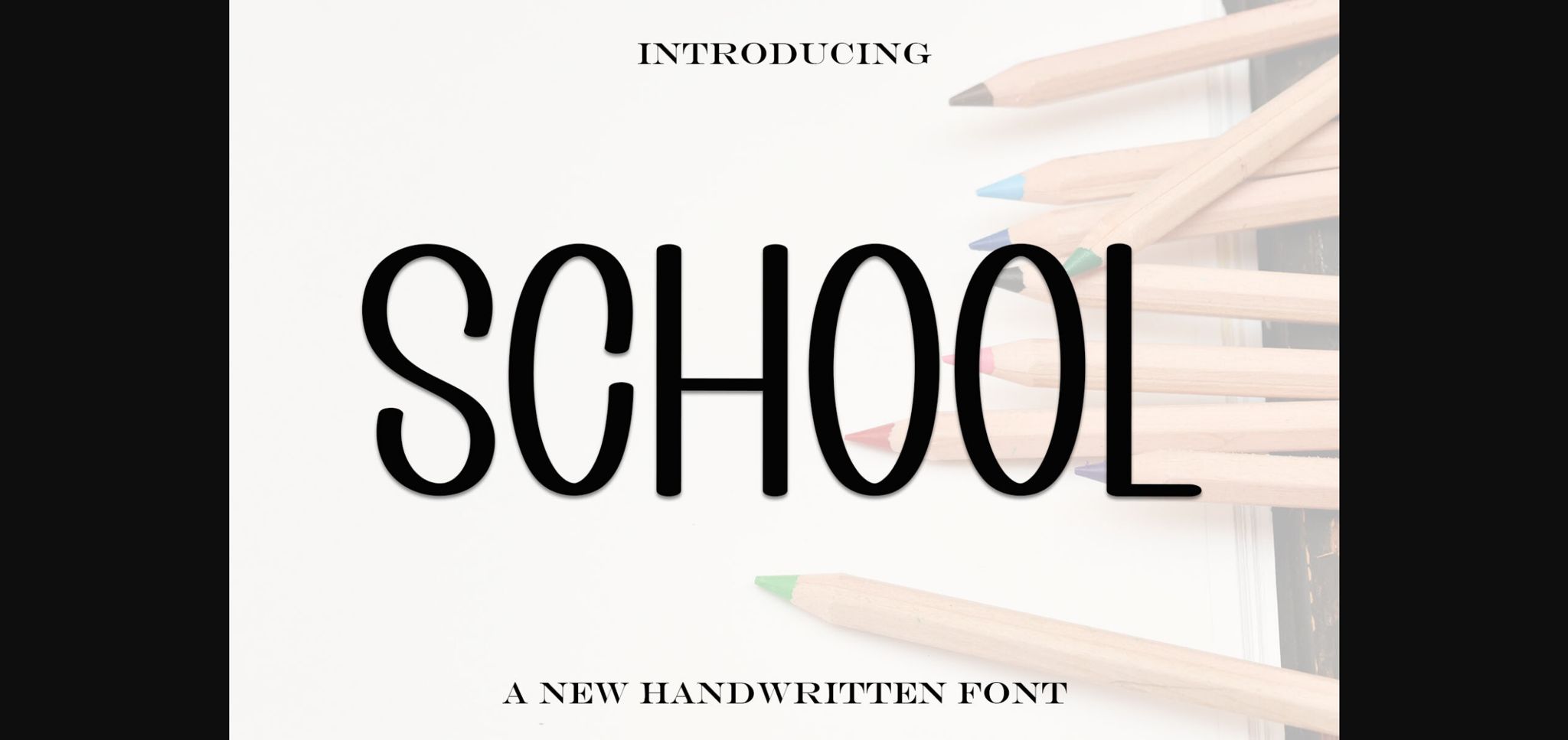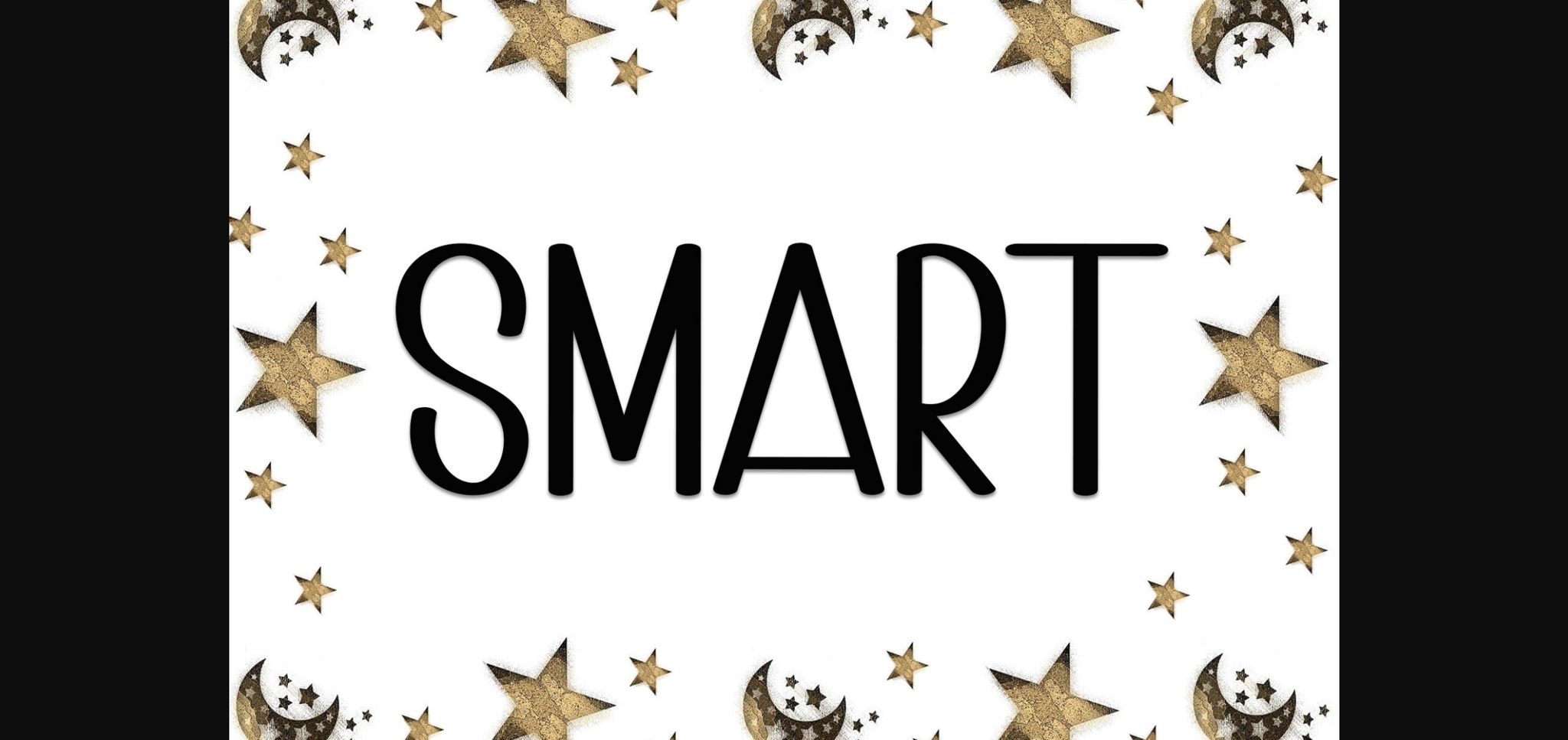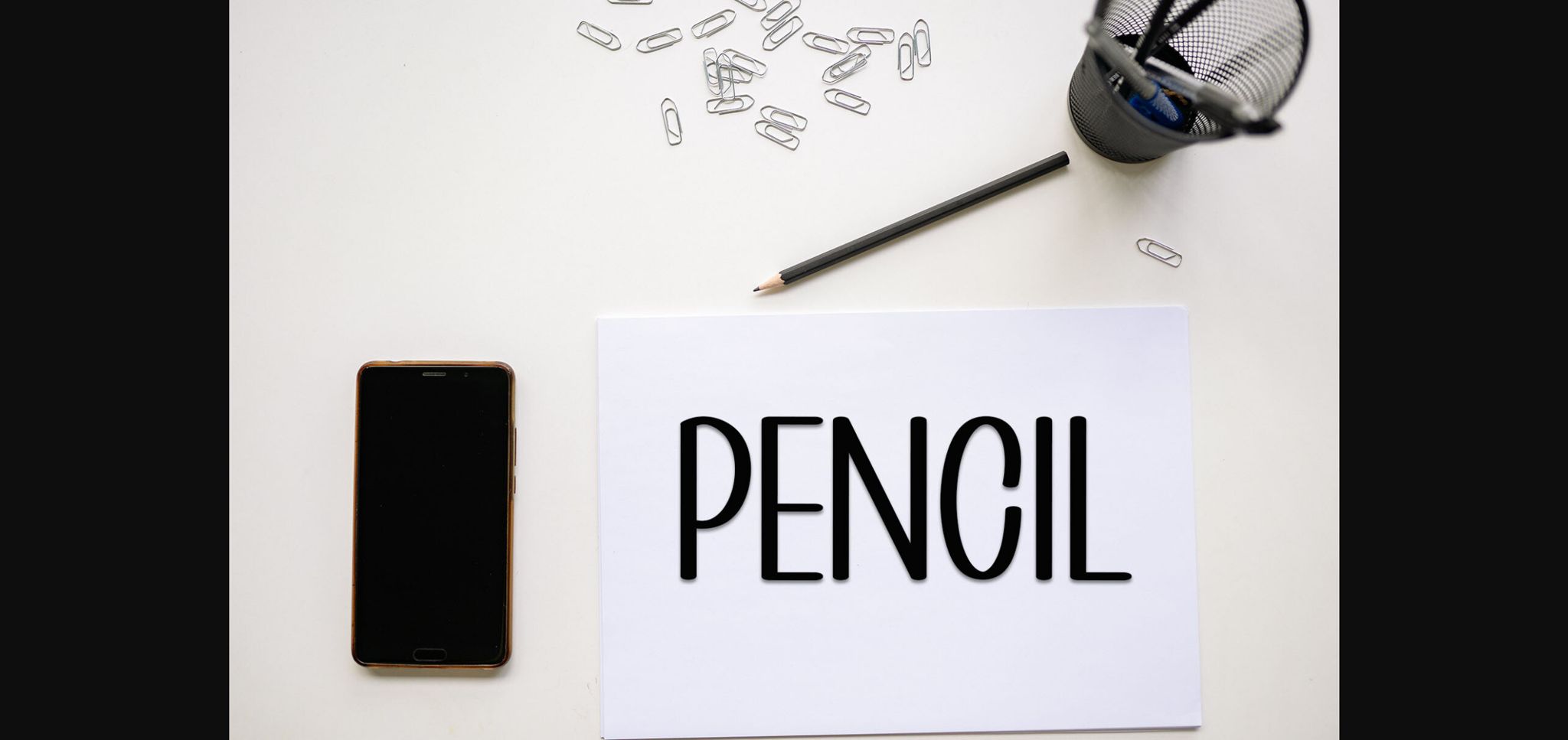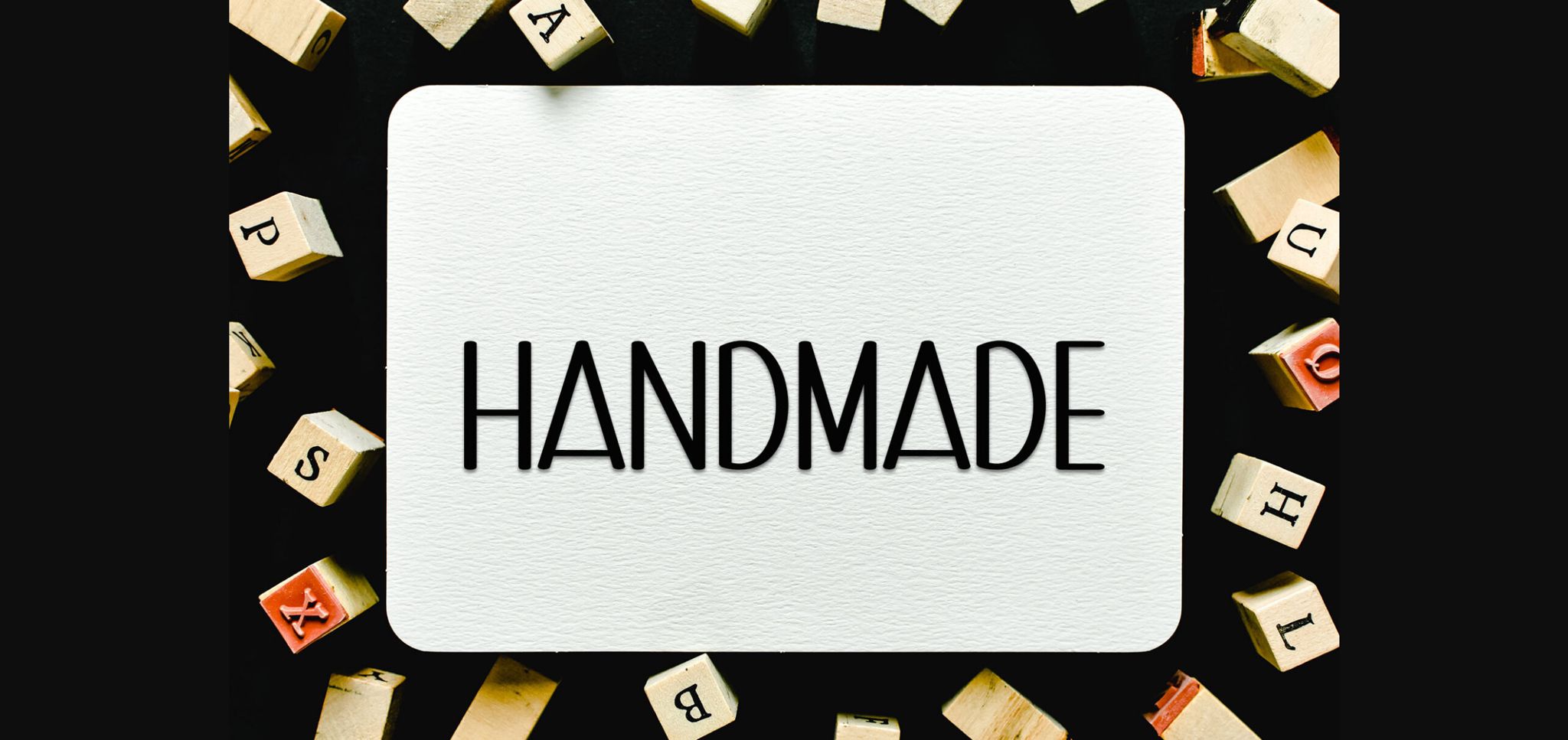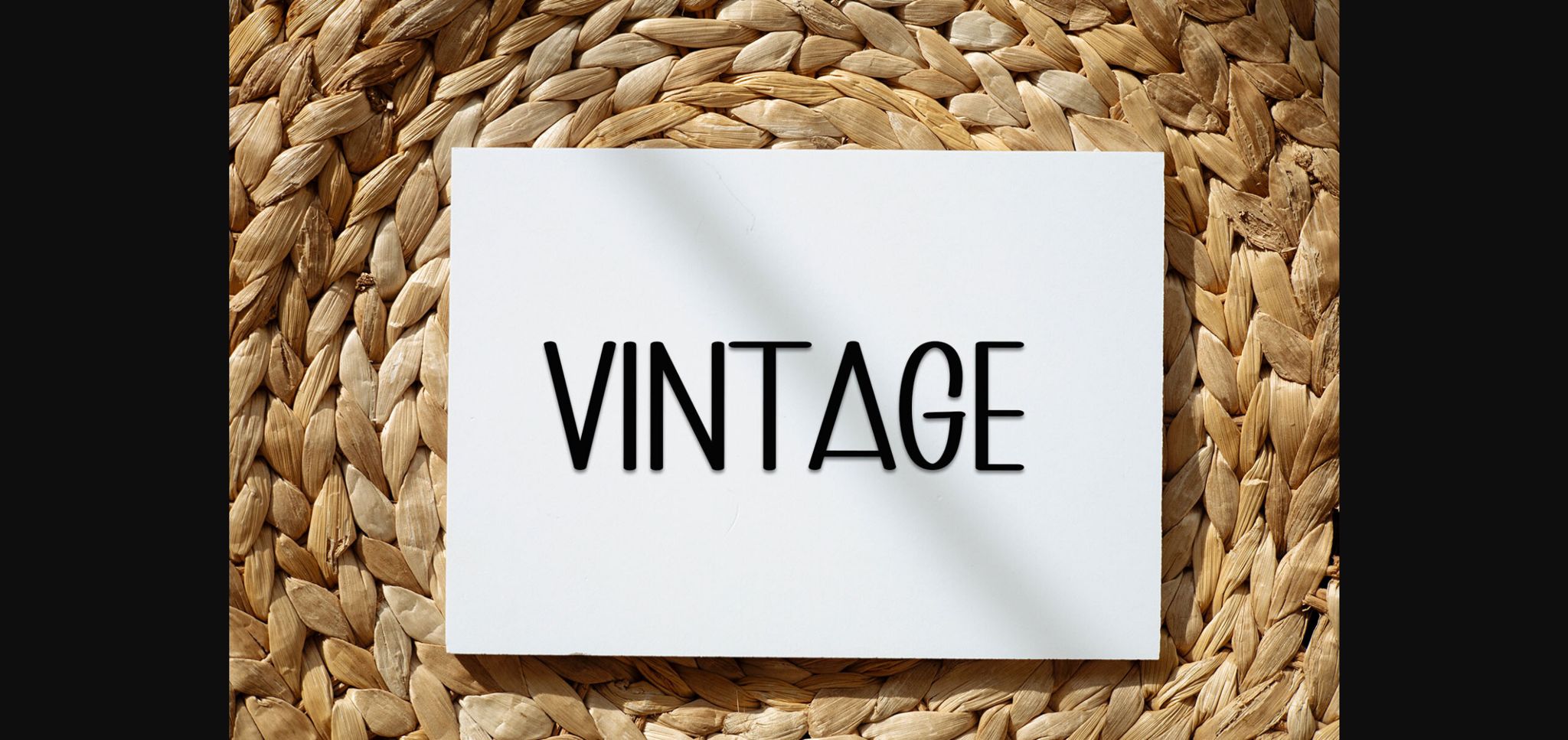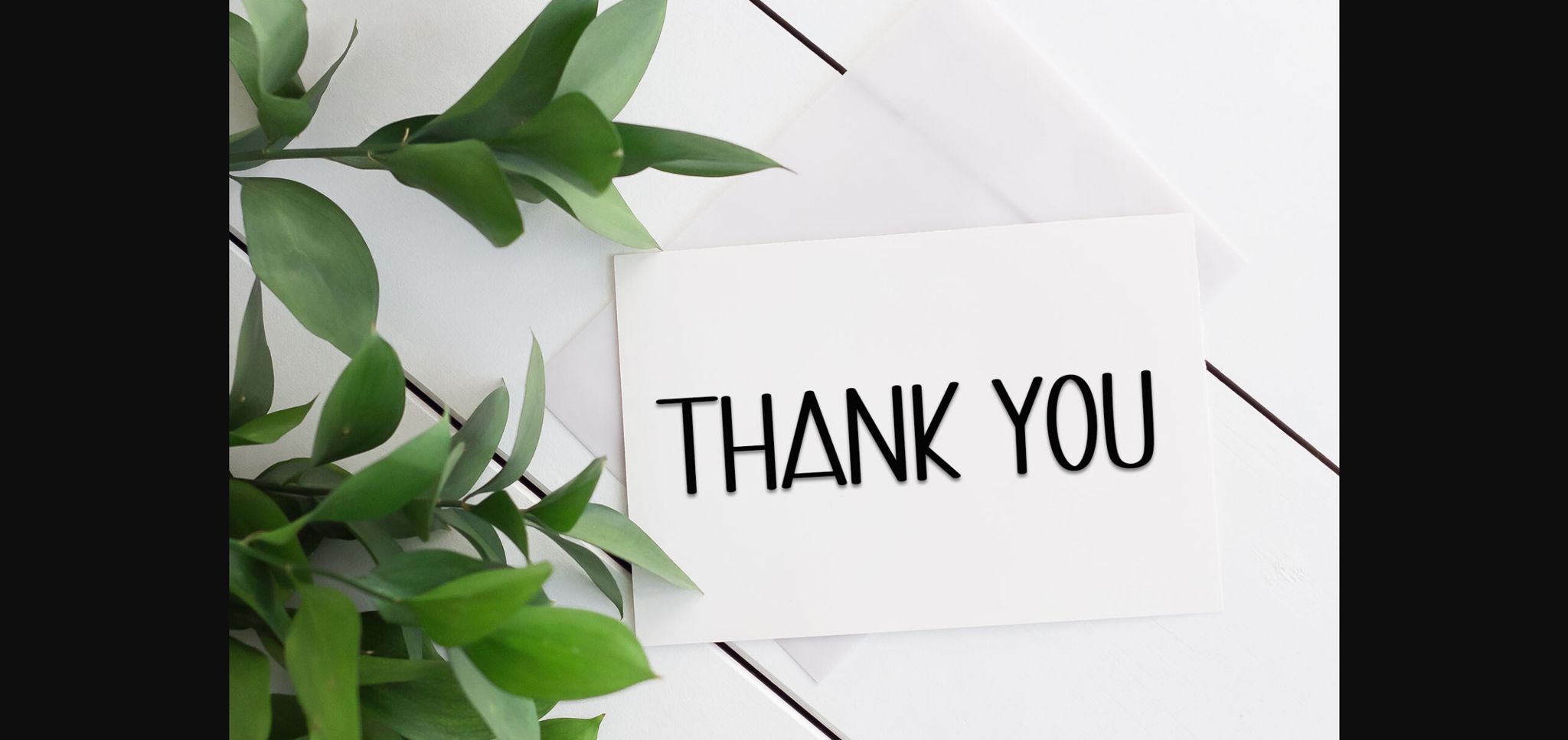
About School Font
School is a neat and beautiful sans-serif font described by an elegant touch, perfect for your favorite projects.
Fall in love with its incredibly distinct and timeless style, and use it to create spectacular designs!